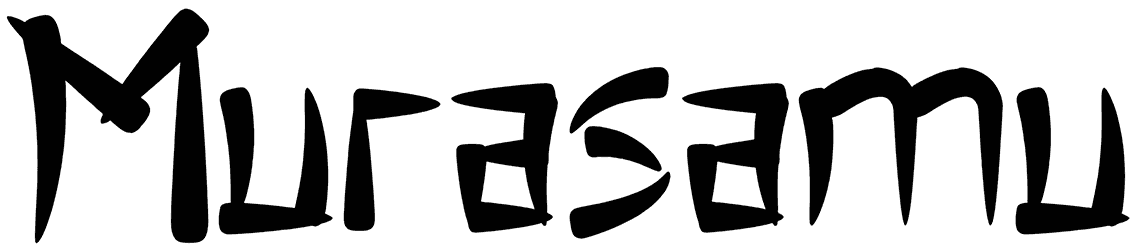
Murasamu Font
Get your text customized with this samurai font to convey a powerful and traditional vibe to your visitors. This Japanese font doesn’t cover punctuation marks, but its letters will give a cool visual to your festival poster. We offer you to use the Murasamu font for your creative project and surprise your followers.
Murasamu is an awesome oriental brush font. It has a great readability and will add a striking touch to any design!